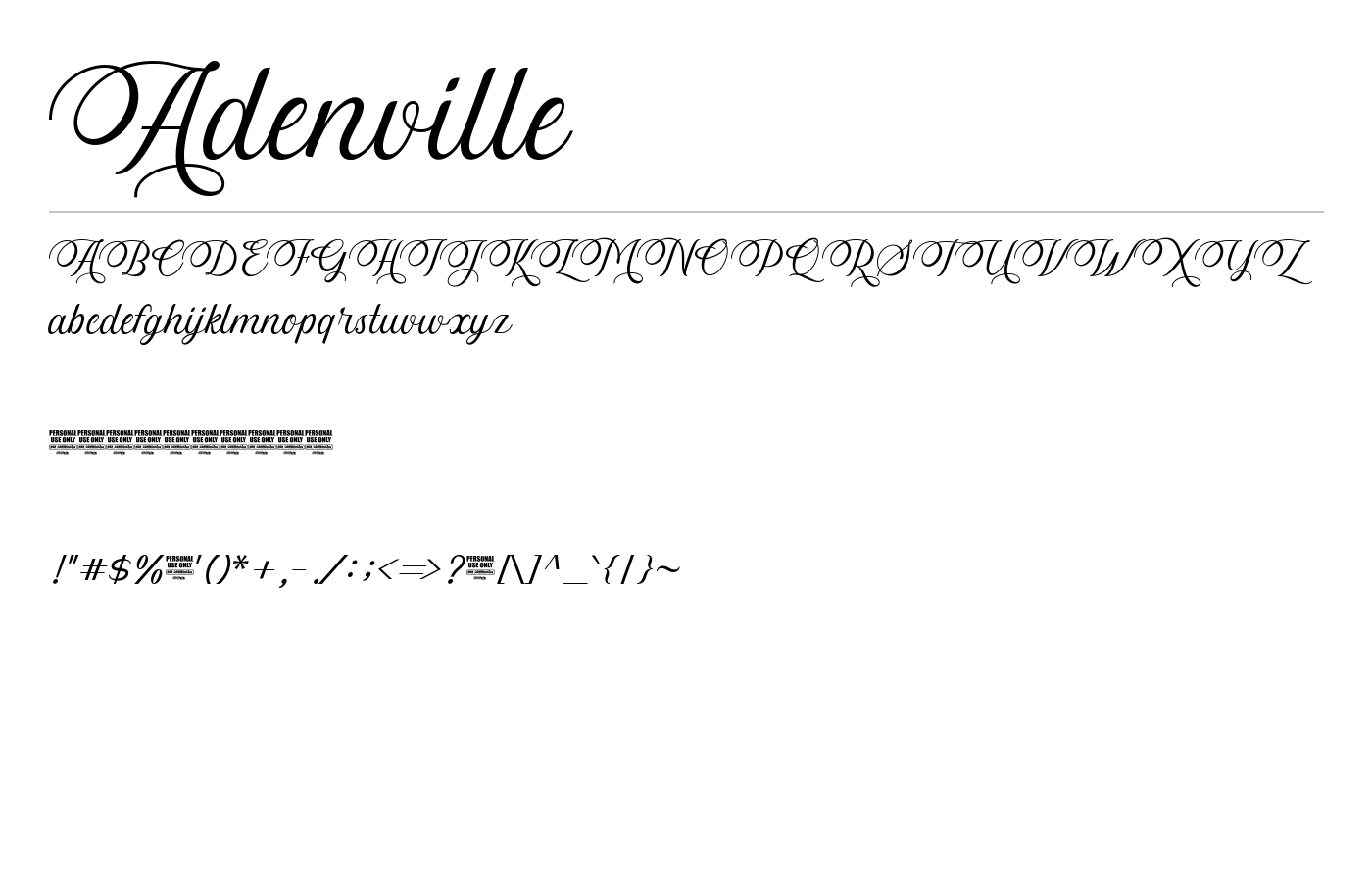
Adenville is an elegant script font with graceful, flowing strokes and fine contrast between thick and thin lines, giving it a sophisticated and refined feel. Its delicate curves and classic calligraphic style make it perfect for luxury branding, wedding invitations, and upscale editorial designs where a touch of timeless beauty is desired.
Adenville Font
About Adenville Font